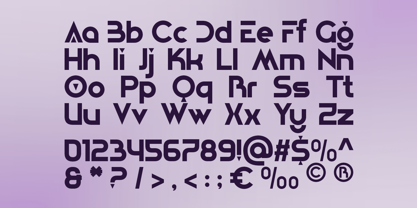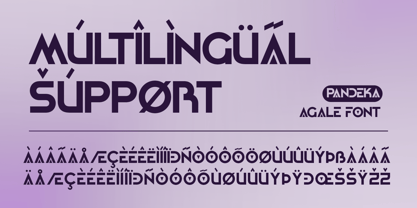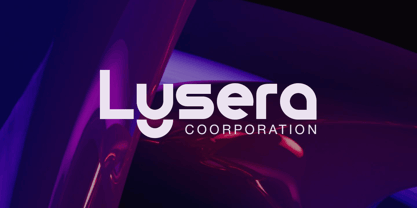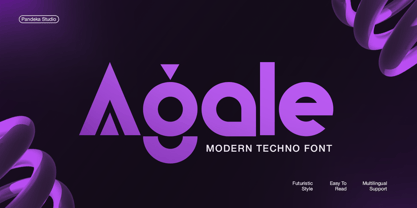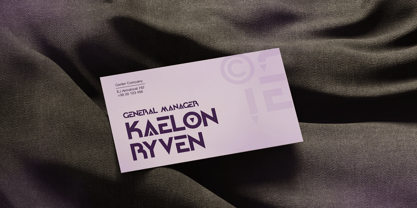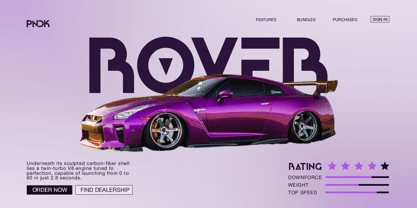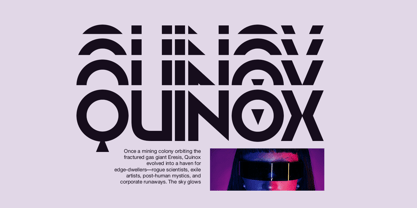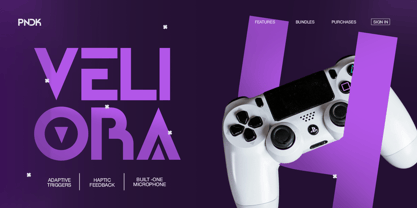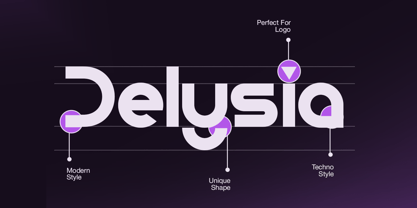
Agale
The Agale Font Family was designed by Sagara Nararya and published by Pandeka Studio. Agale contains 1 styles. More about this family
Agale is a modern techno display font that fuses futuristic style with sharp geometric elegance. Its bold letterforms and distinct modular construction make it ideal for high-tech branding, gaming, esports, automotive, gadgets, UI/UX, and space-themed projects.
Agale includes uppercase and lowercase characters, numerals, symbols, and multilingual support, ensuring it's versatile enough for global use. Alternate characters and stylistic sets add dynamic flexibility, giving designers the tools to create cutting-edge, impactful visual identities.
From sleek product branding to digital interfaces, Agale delivers strong sci-fi vibes and cyber aesthetics that command attention.